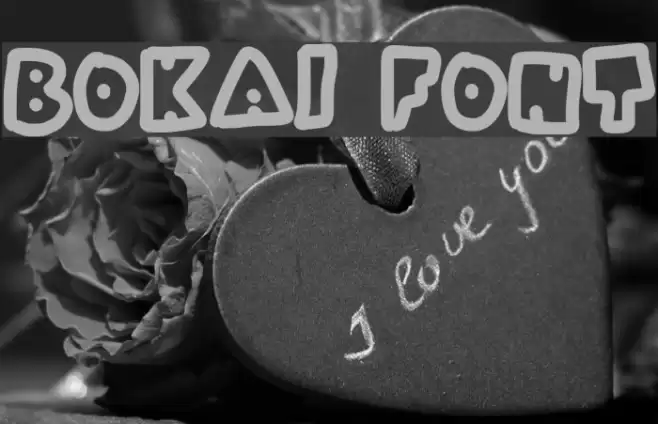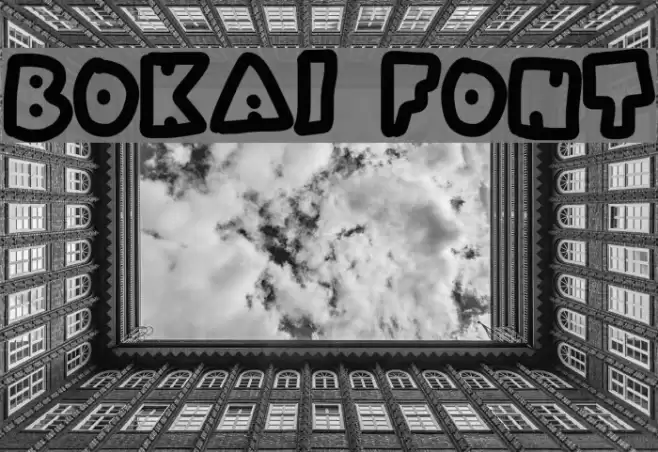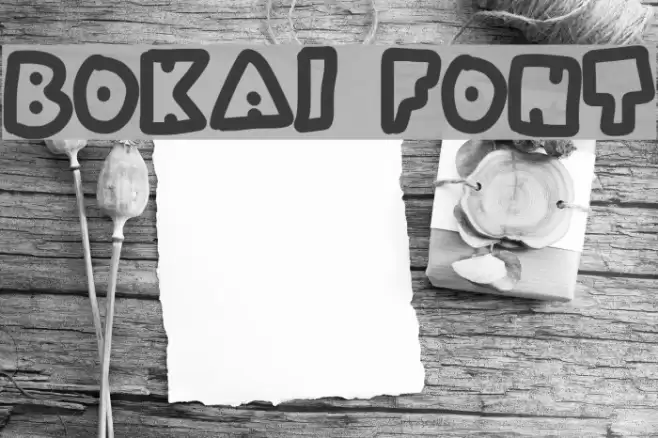
Bokai Font
Bokai Description
This playful and bold font features thick, rounded edges with a cartoonish style. Each character is outlined, giving it a bubble-like appearance that stands out. The uppercase and lowercase letters maintain a consistent, whimsical design, making it ideal for projects that require a fun and engaging look. The numbers and special characters follow the same playful theme, ensuring uniformity across all text elements. The font's unique style is perfect for children's books, comic strips, or any creative project that seeks to capture attention with its lively and animated appearance.
A playful, bold font with a cartoonish, bubble-like style from Uncategorized fonts.
- Proposed Projects: Ideal for children's books, comic strips, playful branding, and creative posters.
- Overall Style: Playful, Cartoonish